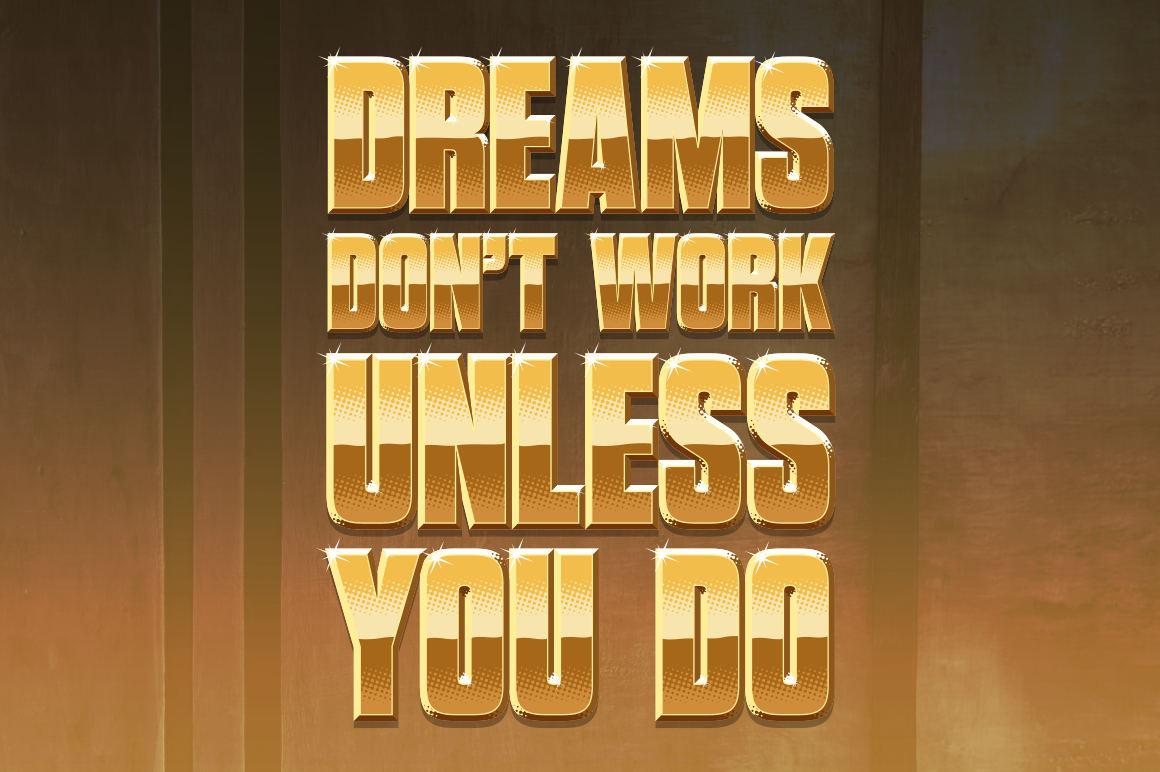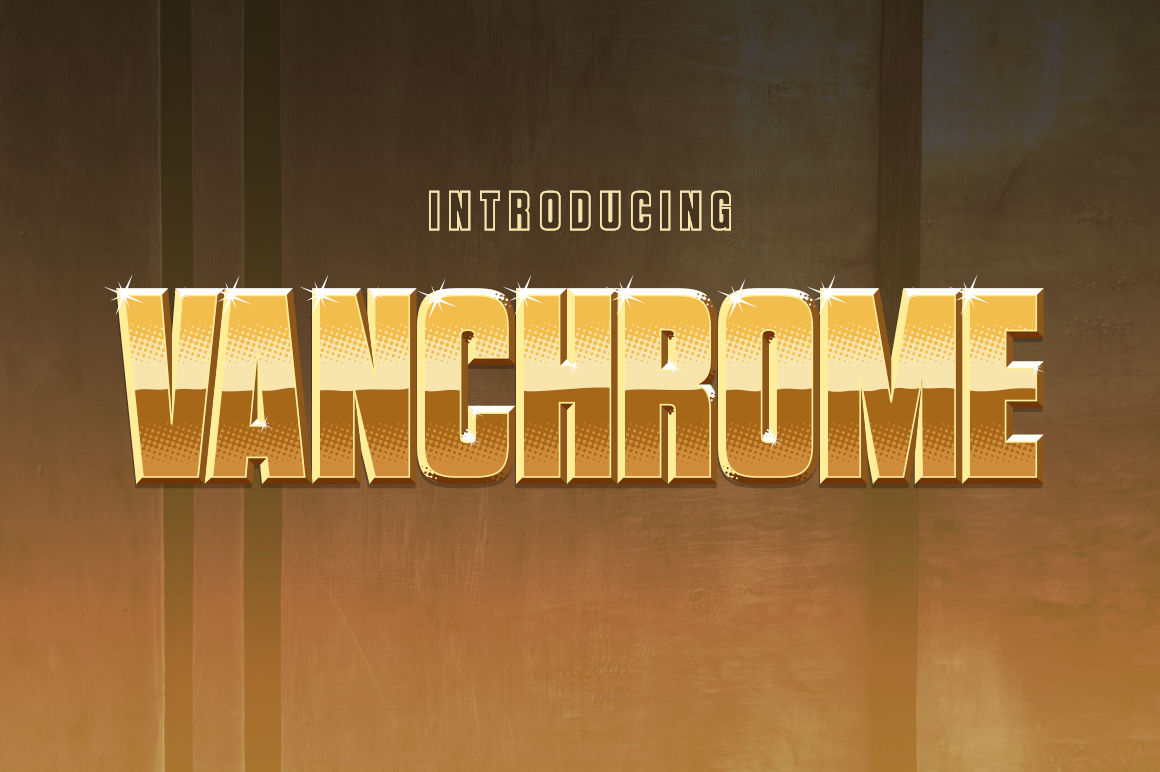
Get this free display font, perfectly crafted for layered use! This font is a robust sans serif with multiple styles that you can layer for extraordinary results. This free font was crafted by Typodermic.